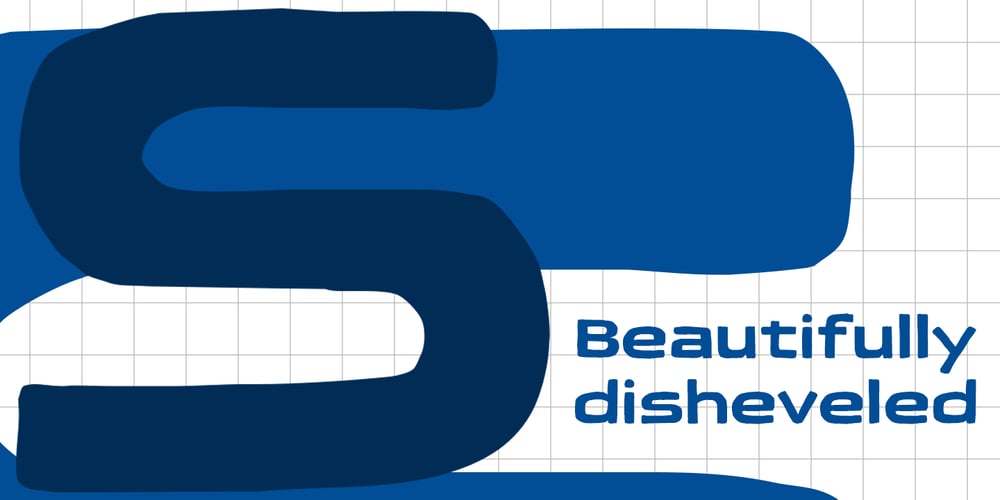
Sid Font Family was designed by Alec Julien and published by Haiku Monkey. Sid contains 2 styles and family package options. Sid is big, a little rough hewn, and just off kilter enough to provide some visual interest that most sans serifs don’t have. Use it where you need something that makes a real impact.